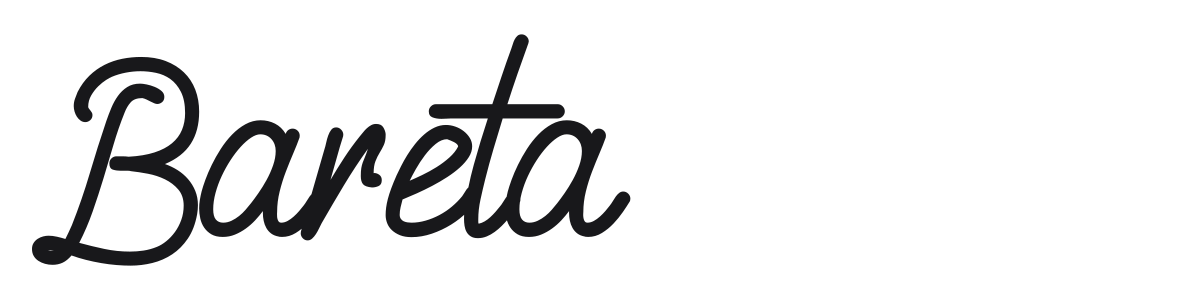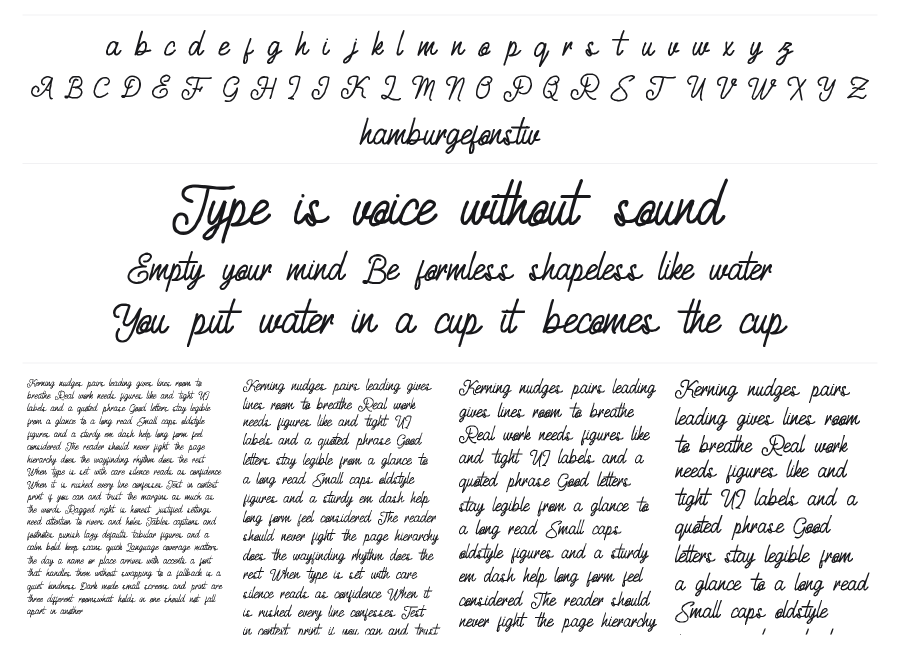
Bareta
Bareta is a casual connected script that channels the relaxed energy of mid-century hand-lettered signage. Its flowing strokes and natural rhythm give it an approachable, handcrafted warmth that translates well to logos, labels, and social graphics. The vintage-modern balance makes it at home in contemporary artisan branding.